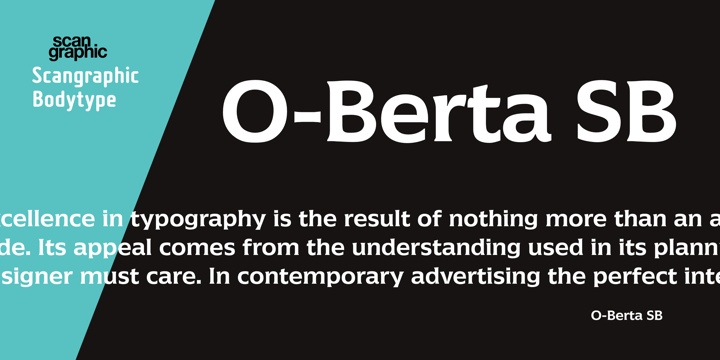
O-Berta SB Font
O-Berta SB Font is perfect for empowering women's organizations, strong female leadership brands, feminist advocacy groups, women's rights campaigns, female entrepreneur networks, and powerful sisterhood communities. This commanding typeface excels in women's conference materials, female empowerment publications, leadership coaching brands, and any application where feminine strength and determined spirit create meaningful connections with powerful women and equality advocates.
What makes O-Berta SB Font so exciting is its exceptional ability to embody the strength and determination of empowered women through boldly confident letterforms that command respect and inspire action. The font features strong character construction, empowering proportions, and determined design elements that reflect the courage and leadership essential to women's advancement. Its powerful presence makes it perfect for organizations championing women's rights and female leadership.
O-Berta SB Font comes in a powerful family including Light, Regular, Medium, Bold, and Empowered weights. Each style features complete uppercase and lowercase character sets, empowerment symbols, strong numerals, and determined punctuation marks. The font family also includes leadership alternates, empowerment ligatures, and sisterhood variations that allow designers to create truly inspiring communications with feminist appeal and professional empowerment quality.
This inspiring typeface transforms communications into powerful declarations of feminine strength and women's empowerment. O-Berta SB Font Free Download provides women's organizations and feminist brands with essential typography that honors women's struggles while serving contemporary empowerment communication needs. Whether you're developing brands for women's leadership programs, creating materials for feminist advocacy, or designing promotional content for female entrepreneur networks, this font delivers authentic empowerment resonance with commanding strength.
The font's empowering character makes it particularly effective for women's organizations, female leadership coaches, feminist advocacy groups, and empowerment brands. Its strong readability ensures that O-Berta SB Font communicates clearly while maintaining its distinctive powerful personality. The font's ability to evoke strength and determination makes it an invaluable voice for any project seeking to celebrate women's power and connect with audiences through the timeless appeal of feminine strength, sisterhood solidarity, and the inspiring courage of women who dare to lead and change the world.